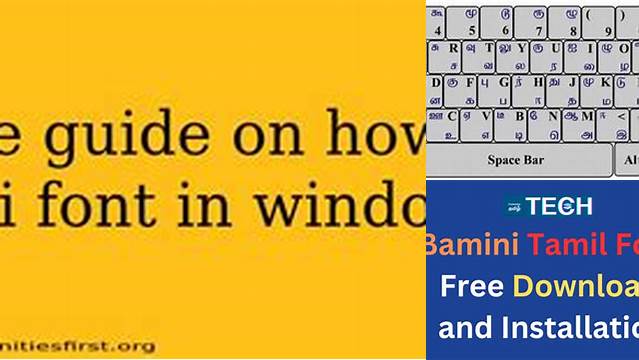
The importance of using the correct font cannot be overstated, especially when dealing with specific languages or character sets. Bamini, in particular, is crucial for users who need to type in certain Indian languages. Without the correct font, characters may not display properly, leading to garbled text or missing symbols. This can be incredibly frustrating when you’re trying to create documents, presentations, or any other type of content that requires precise character representation. Imagine spending hours crafting a document only to find that it looks completely wrong on another system because the font is missing! This is why having the right font installed is so important. Moreover, using the correct font ensures consistency across different platforms and applications. Whether you’re sharing a document with colleagues or submitting an assignment, you want to be sure that everyone sees the text as intended. This consistency is particularly vital in professional settings, where clear and accurate communication is paramount. Additionally, the right font can significantly enhance the readability and visual appeal of your work. Bamini, with its clear and legible design, is an excellent choice for long documents or intricate layouts, making it easier for readers to engage with your content. So, ensuring you have the Bamini font installed is not just about functionality; it's about ensuring your work looks its best and communicates effectively.